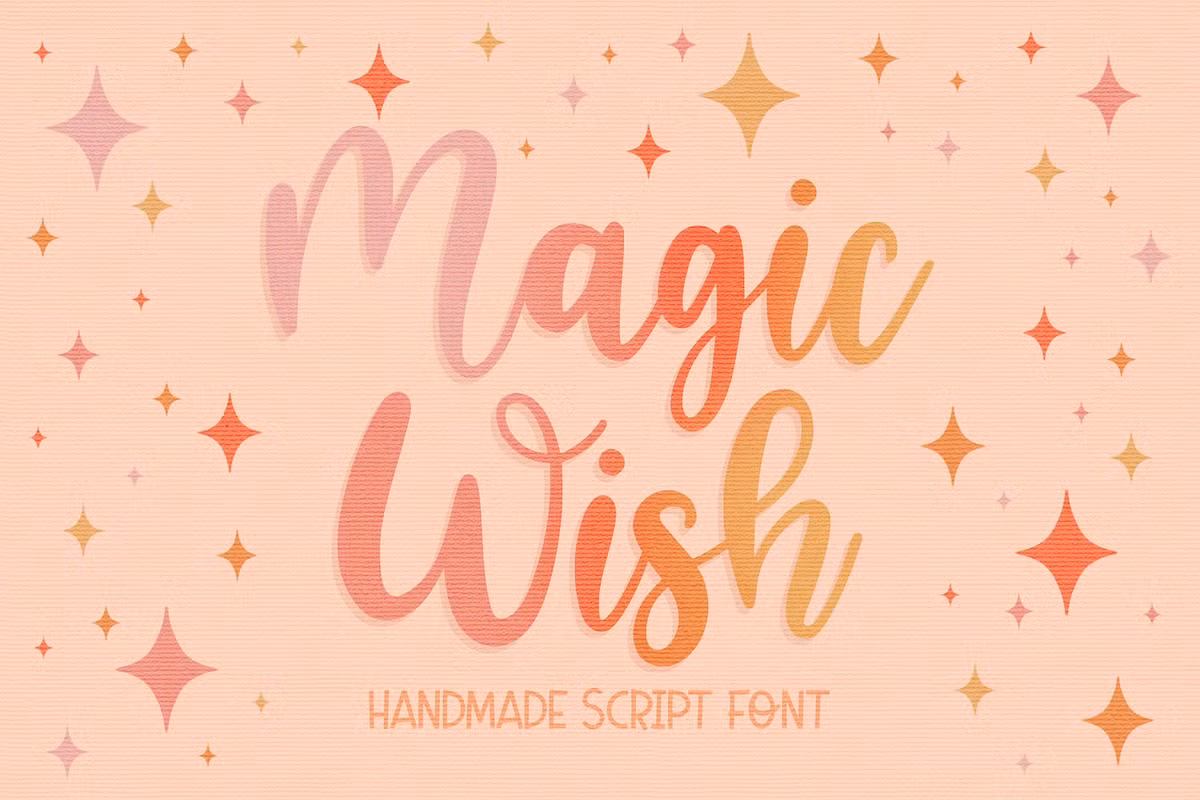
Magic Wish Handwritten Script Font Free Download
Magic Wish – Handwritten Script Font Free Download is a whimsical and elegant typeface that brings a touch of magic and charm to your designs. Please note, you are required to purchase this font for commercial use. It is available for free download for testing and personal projects only.
With its fluid strokes, elegant curves, and enchanting character, Magic Wish is perfect for invitations, greeting cards, logos, social media graphics, and anything that needs a dash of personal flair. It exudes warmth and creativity, making it ideal for projects that aim to feel both enchanting and heartfelt.